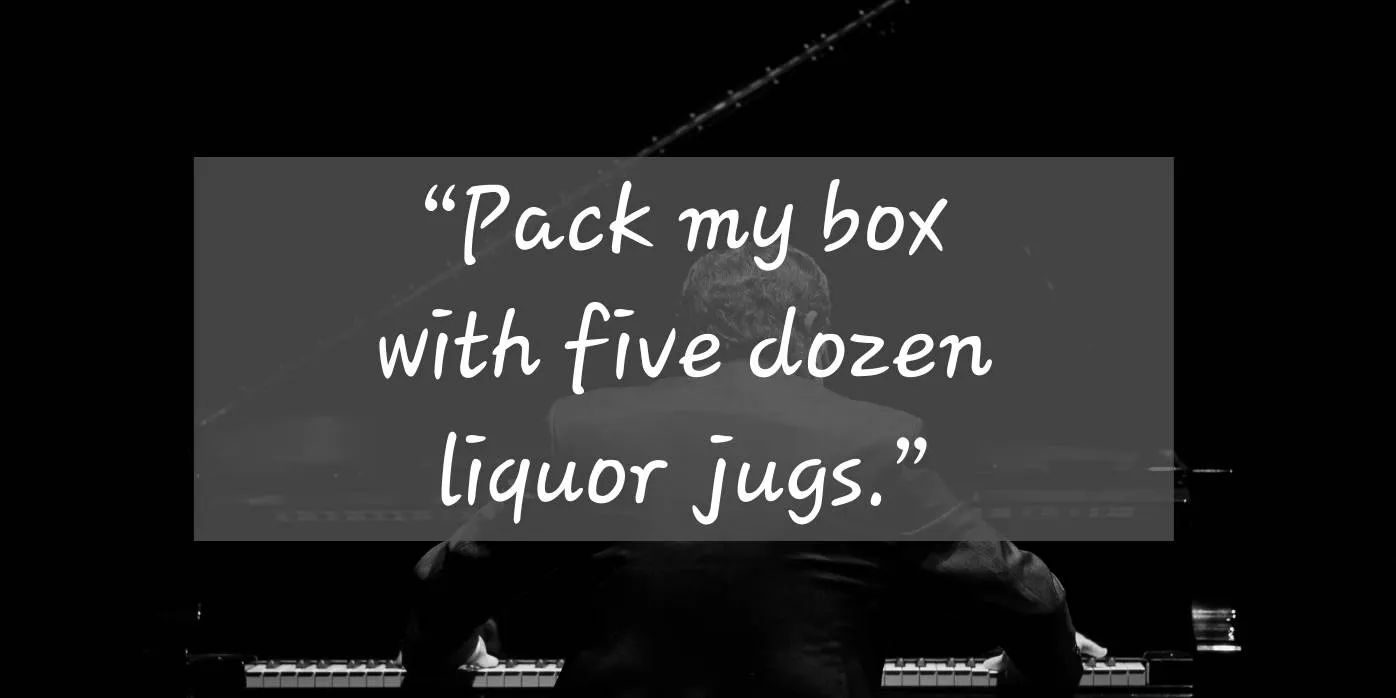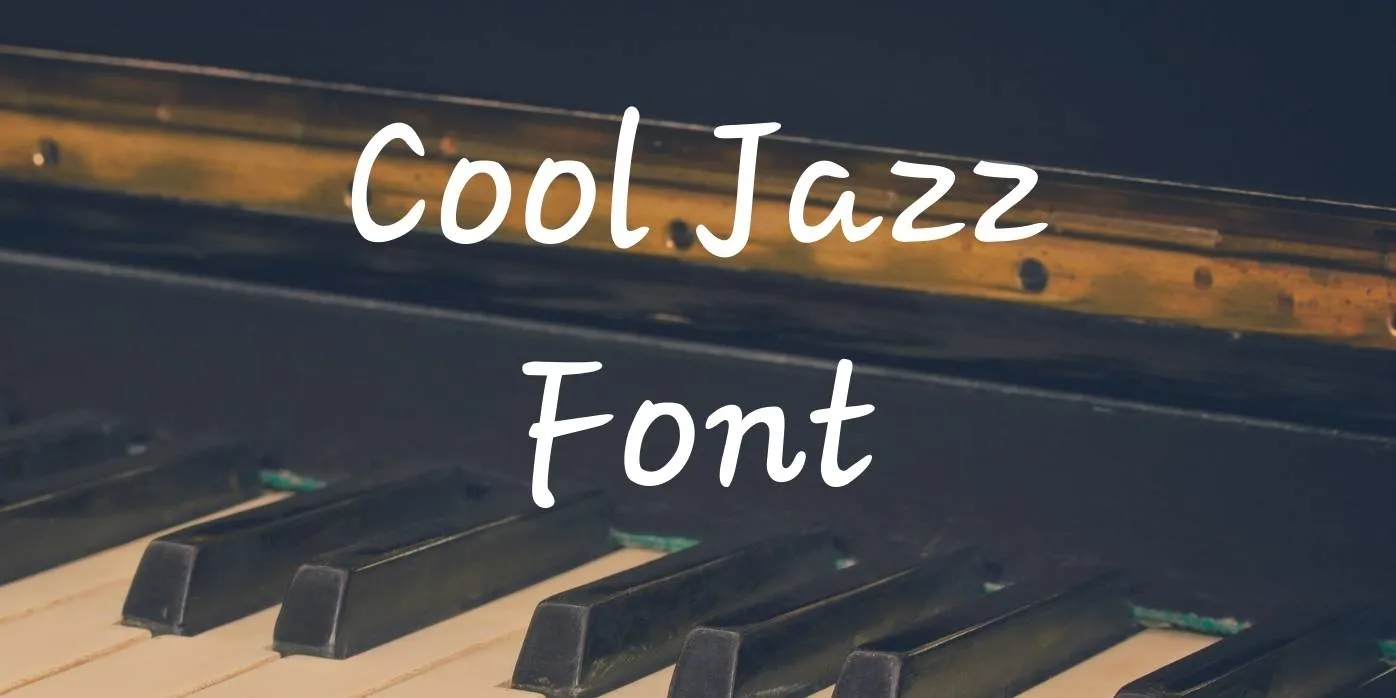
Cool Jazz Font
Cool Jazz Font Was developed by a very famous designer Oleg Pospelov. This typeface belongs to the Script typeface. The font was designed in 2018 and released in 2019. This awesome Font is perfect for any project that needs a cool, modern, and stylish look.
This typeface was designed basically on the base of jazz lettering. So, if you are looking for something that will make your project cool and modern, This staggering Font is a perfect option for you. The font includes uppercase and lowercase letters, numerals, punctuation, symbols, ligatures, and alternate characters. You can use this typeface for various purposes related to your designs.